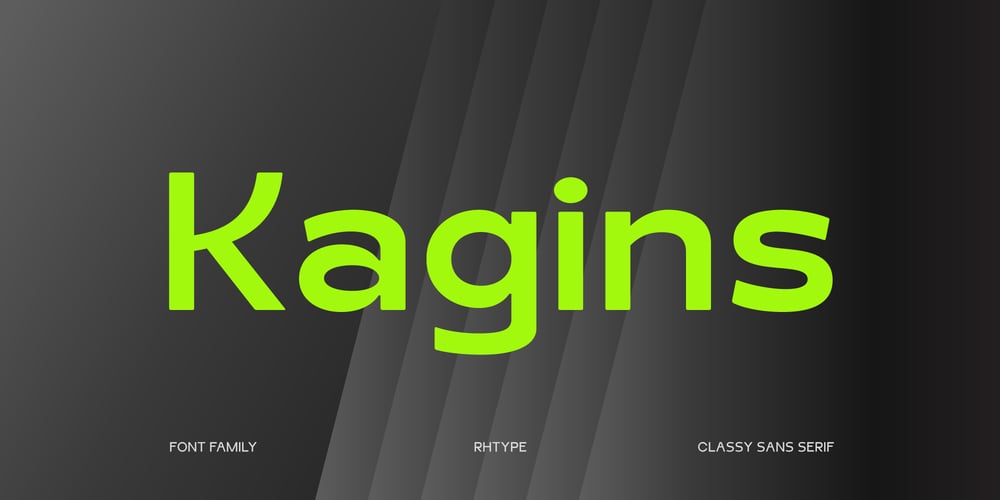
Kagins
Kagins font
Kagins Font Family was designed by Rizky Herdiansyah and published by Rhtype. Kagins contains 40 styles and family package options. Kagins is a family of sans-serif fonts exuding a classy style. With its distinctive characteristics, it proves to be an excellent choice for your business needs. Crafted professionally and with meticulous care, Kagins fonts are designed to elevate your projects with a touch of sophistication and charm.